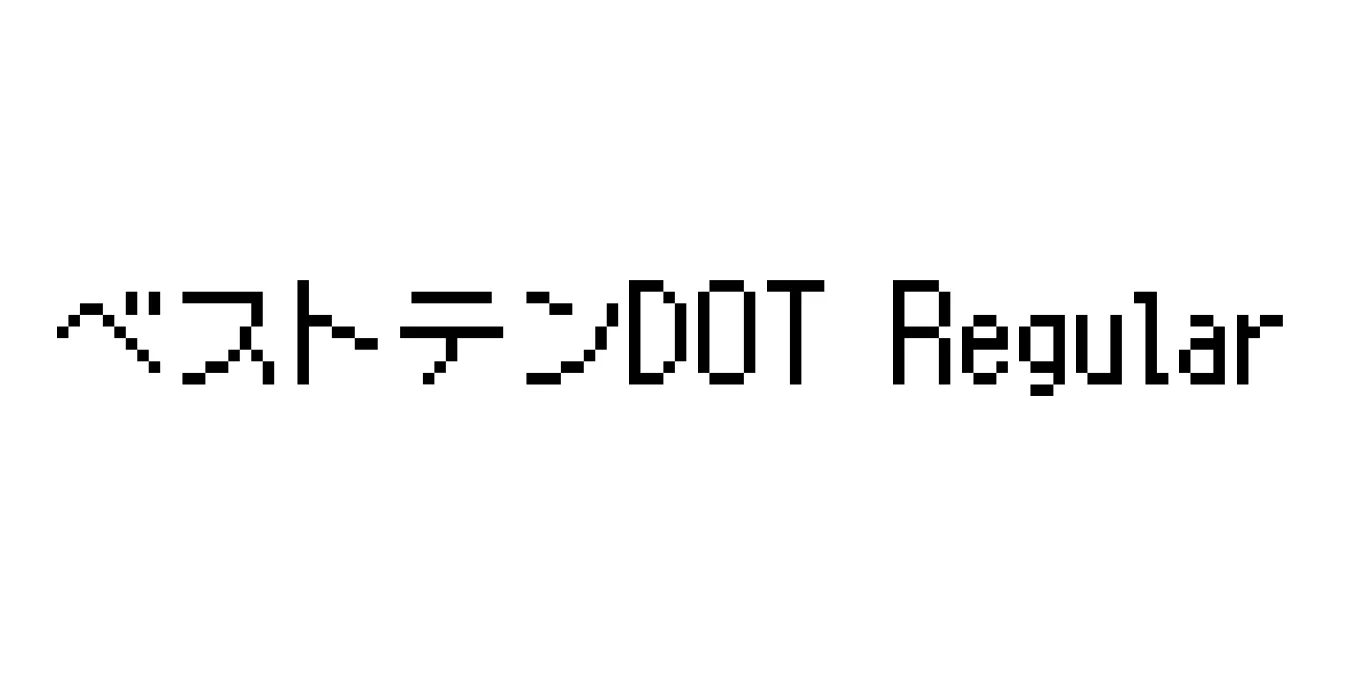
ベストテンDOT Regular
Designed by Maruse (Typing Art)
| Font Name | ベストテンDOT |
| Category | Pixel / Bitmap |
| Designer | Maruse (Typing Art) |
ベストテンDOT Regular (Best Ten DOT) is a meticulously crafted pixel font designed to capture the essence of vintage 8-bit video games and early digital display boards. Created by the designer Maruse, this typeface utilizes a grid-based dot matrix system that ensures every character remains legible while maintaining its retro charm. It is particularly effective for projects that aim to evoke nostalgia for the 1980s and 90s computing era, providing a clean yet pixelated aesthetic.
Beyond its visual appeal, the font is highly functional, offering comprehensive support for Japanese Hiragana, Katakana, and Kanji alongside standard Latin alphabets. This makes it an essential asset for developers and designers working on localized retro games, futuristic UI designs, or pixel art. Its consistent spacing and balanced dot arrangement allow it to perform well even at high resolutions, making it a favorite for modern designers seeking a lo-fi look.
ベストテンDOT Regular Best Uses
Perfect for retro-style RPGs, platformers, and HUD elements.
Ideal for creating pixel art posters and nostalgic social media graphics.
Great for unique UI buttons and header text in tech-themed websites.